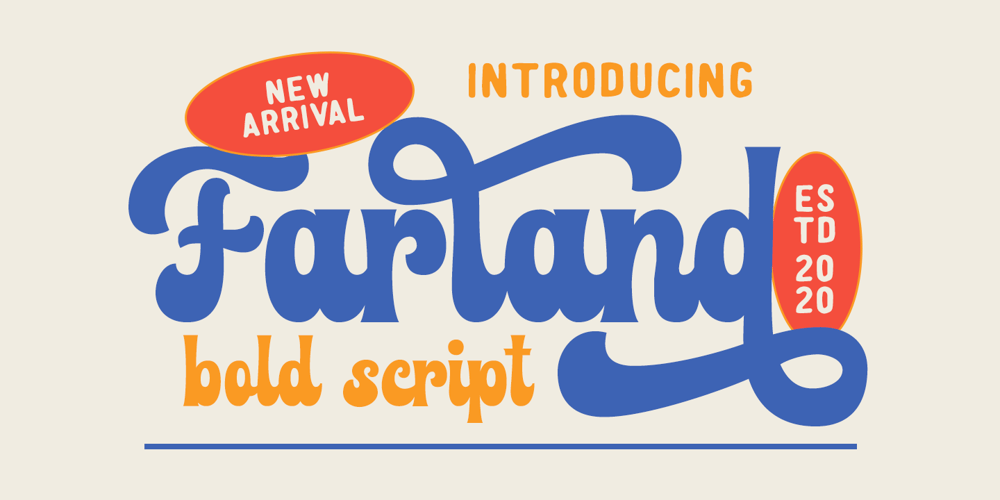
Farland Font Family was designed by Gustian Agung Asprilla and published by Rillatype. Farland contains 1 styles and family package options. Introducing, Farland. a bold script font that carries the vintage feel. This font is perfect for logo, headline, signage, packaging, branding, etc.Features : uppercase & lowercase numbers and punctuation multilingual alternates / swashes and ligatures PUA encoded